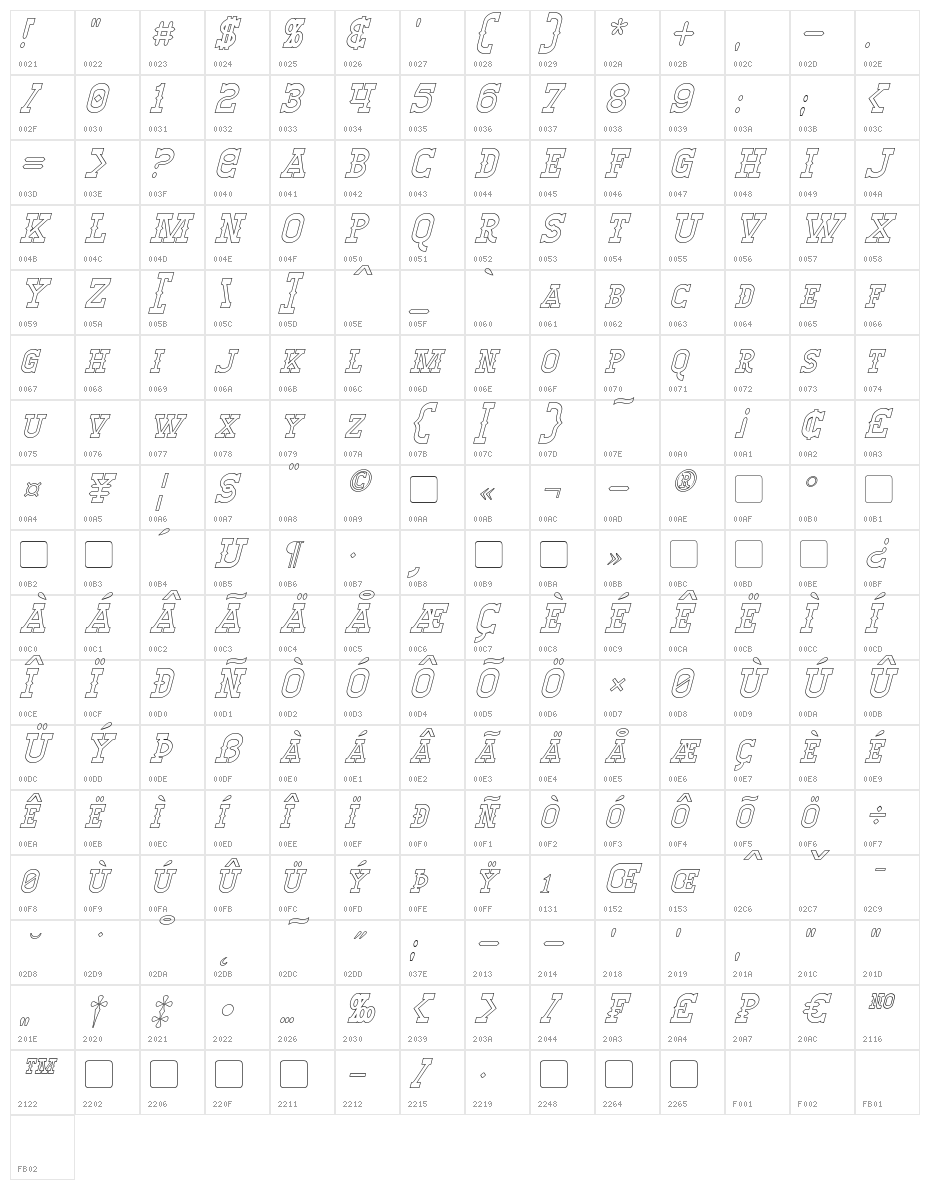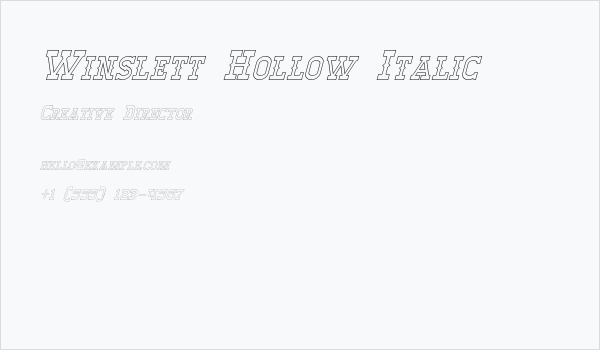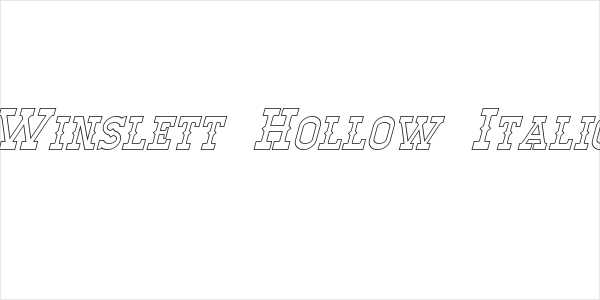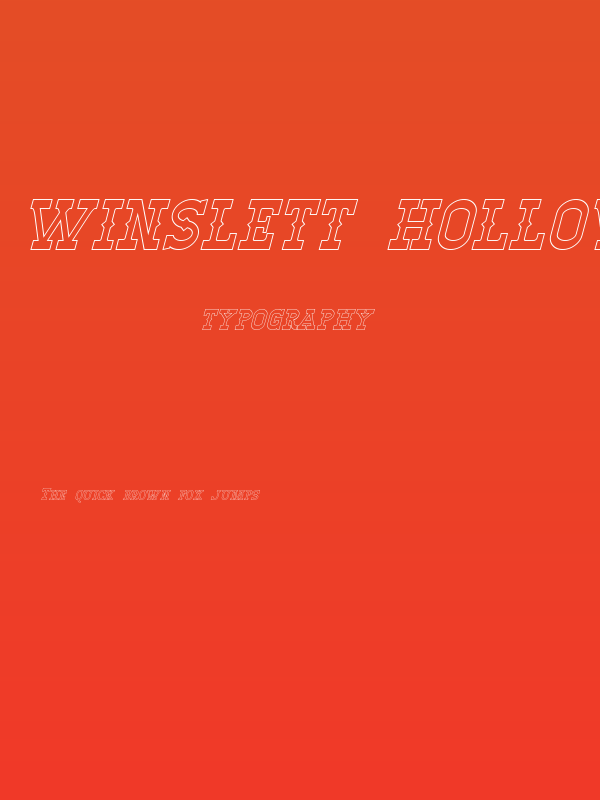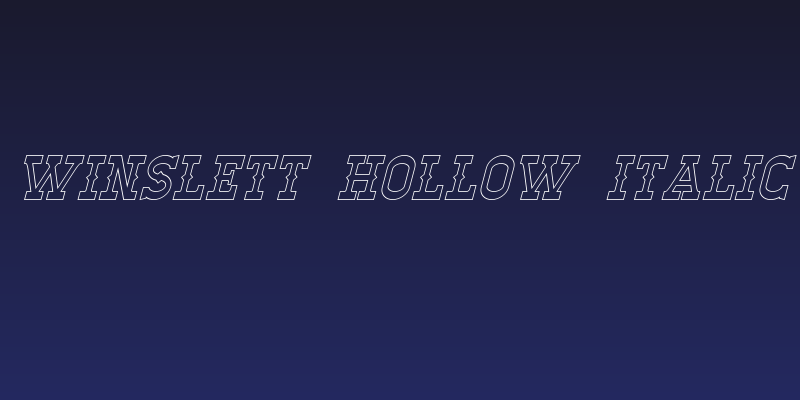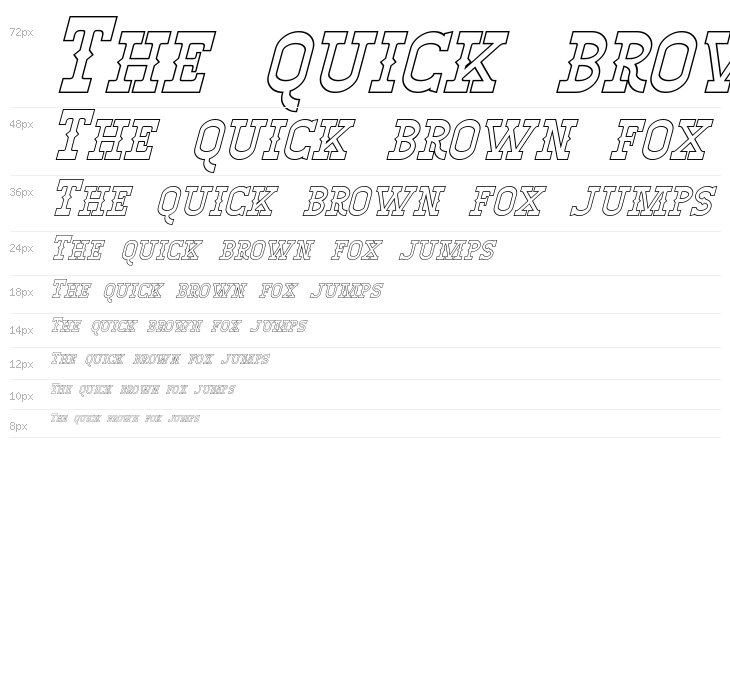
Winslett Hollow Italic Font
Winslett Hollow Italic Description
This font features a bold, italicized style with a hollow interior, creating a striking and dynamic appearance. The characters are outlined, providing a sense of depth and dimension. The uppercase and lowercase letters maintain a consistent slant, enhancing the italic effect. The numerals and special characters follow the same design, ensuring uniformity across all elements. This font's unique hollow design makes it stand out, offering a modern twist on traditional italic fonts. The overall look is both bold and elegant, making it suitable for various creative applications.
| Proposed Projects | Ideal for posters, headlines, logos, and any design requiring a bold, eye-catching font. |